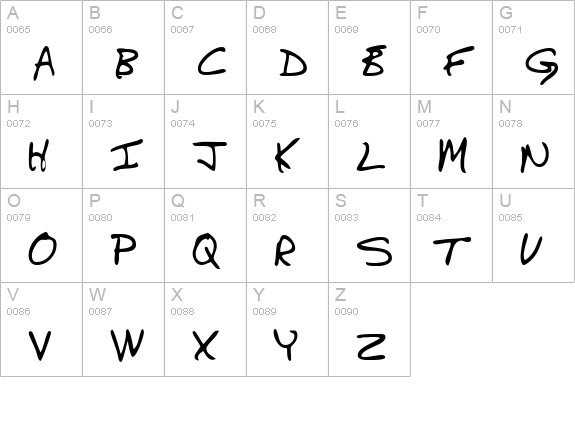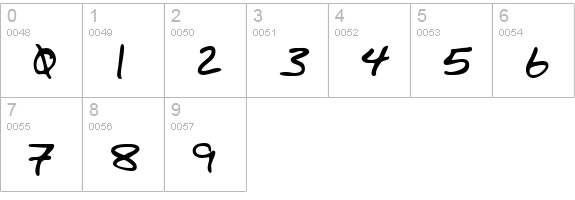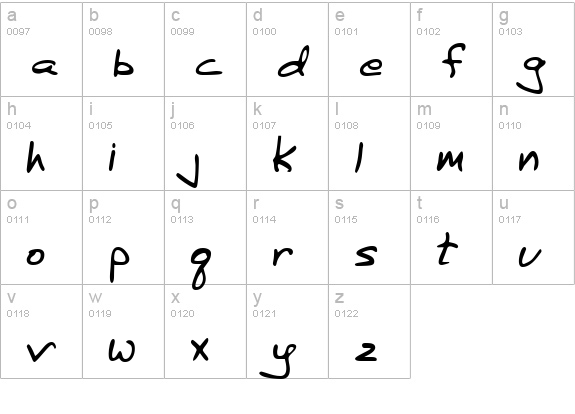
BurkesHand Regular Font Details
BurkesHand Regular is the standard, neutral variant in the BurkesHand typeface family \xE2\x80\x94 well suited to general body text, paragraphs, and standard typographic work.
BurkesHand Regular font is a charming and versatile typeface that exudes elegance and sophistication. Its smooth lines and carefully crafted curves make it a perfect choice for various design projects, from invitations to branding to packaging. This font strikes a balance between traditional and modern styles, making it suitable for both classic and contemporary designs. What sets BurkesHand Regular font apart is not only its aesthetic appeal but also its accessibility. This font is available for free download at FontsMarket.com, allowing designers and creatives to easily incorporate it into their work without any financial constraints. With its timeless beauty and wide range of applications, BurkesHand Regular font is a must-have addition to any font library.